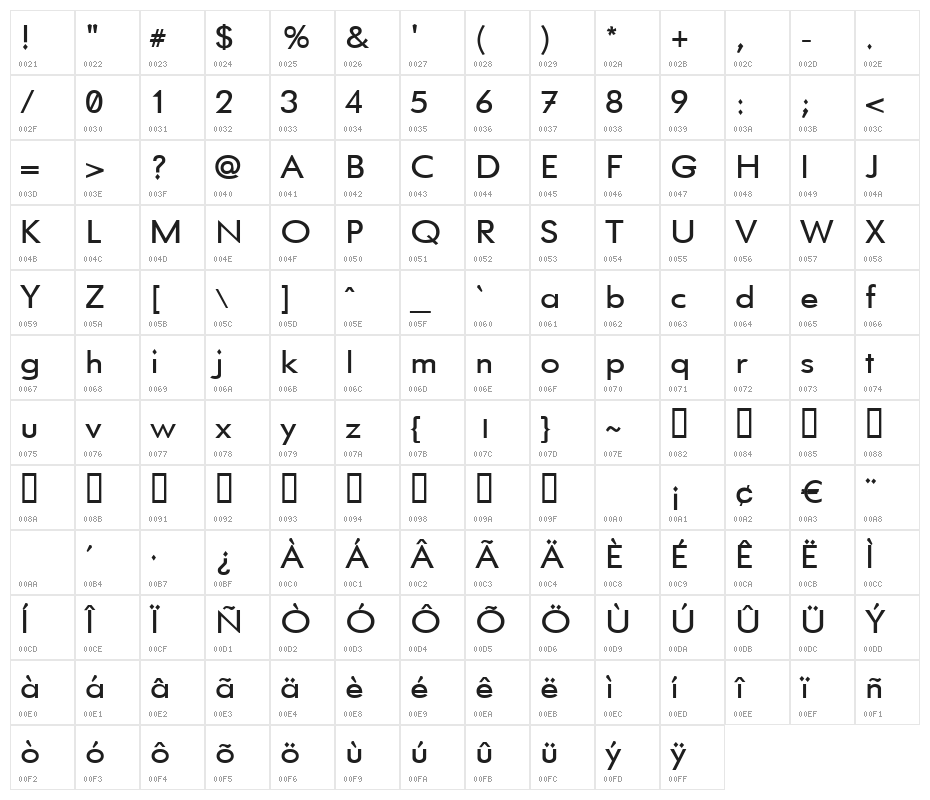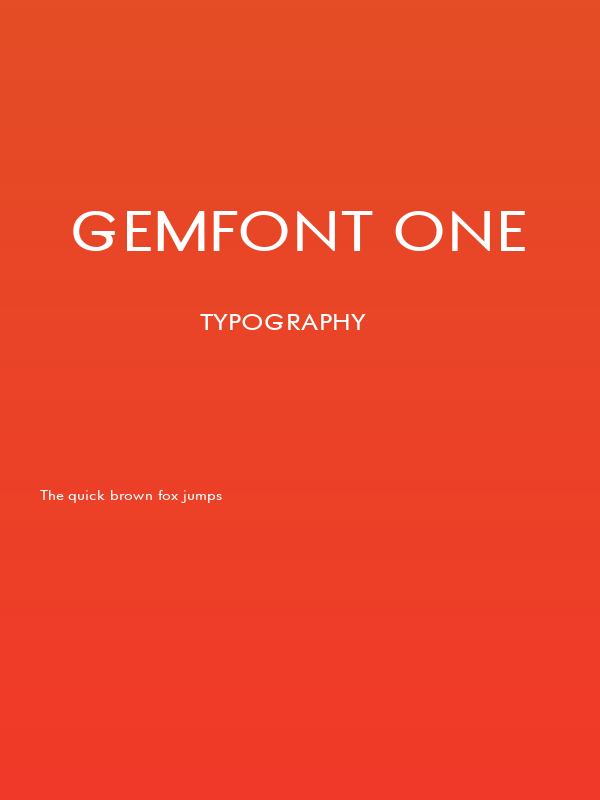
GemFont One Font
GemFont One Description
This font features a clean and modern sans-serif design, characterized by its geometric shapes and balanced proportions. The uppercase letters are bold and assertive, while the lowercase letters maintain a consistent and harmonious flow. The numerals are clear and easily distinguishable, making them suitable for various applications. The special characters are well-integrated, maintaining the overall aesthetic of the font. Its simplicity and clarity make it versatile for both digital and print media.